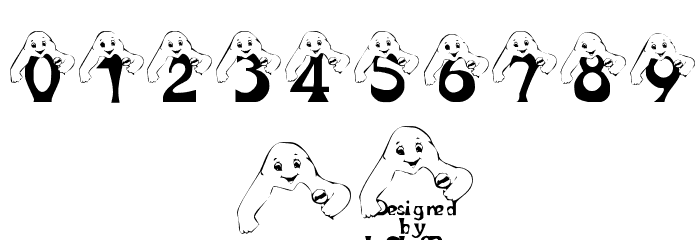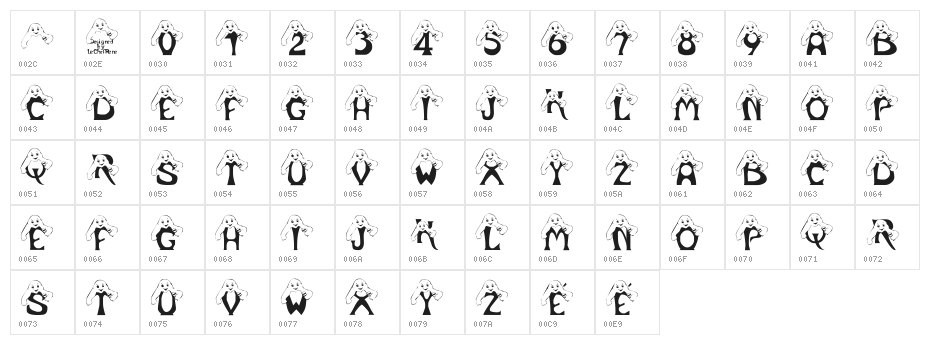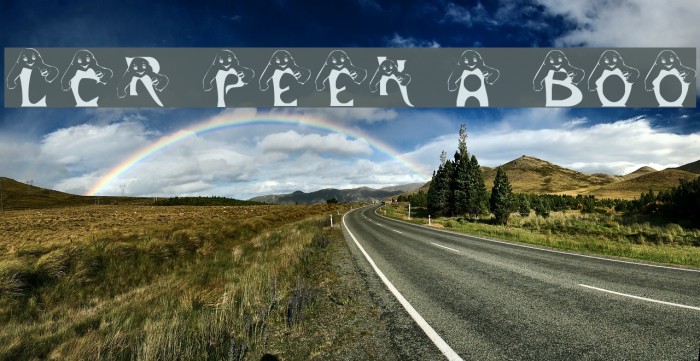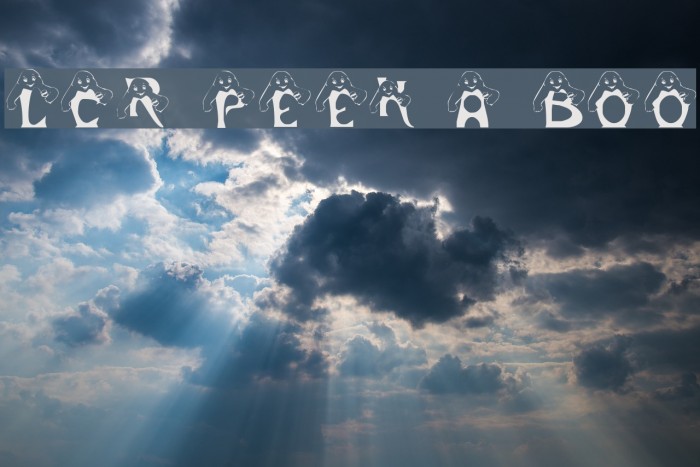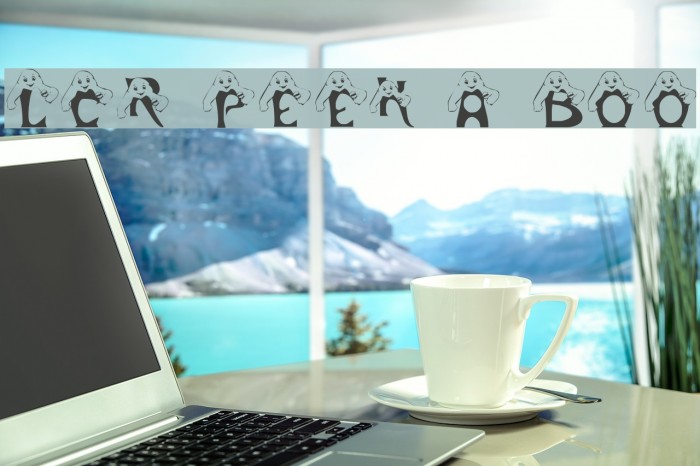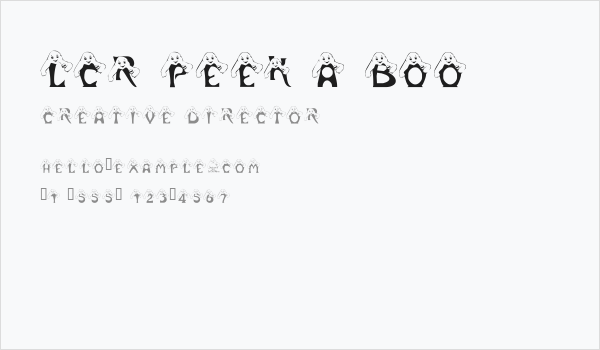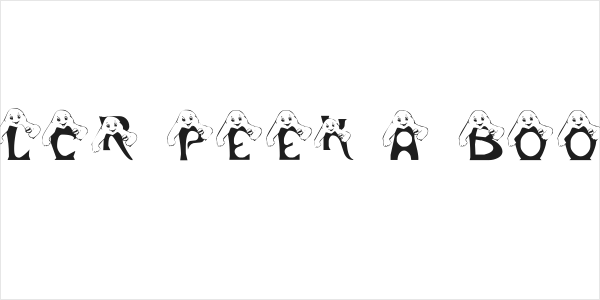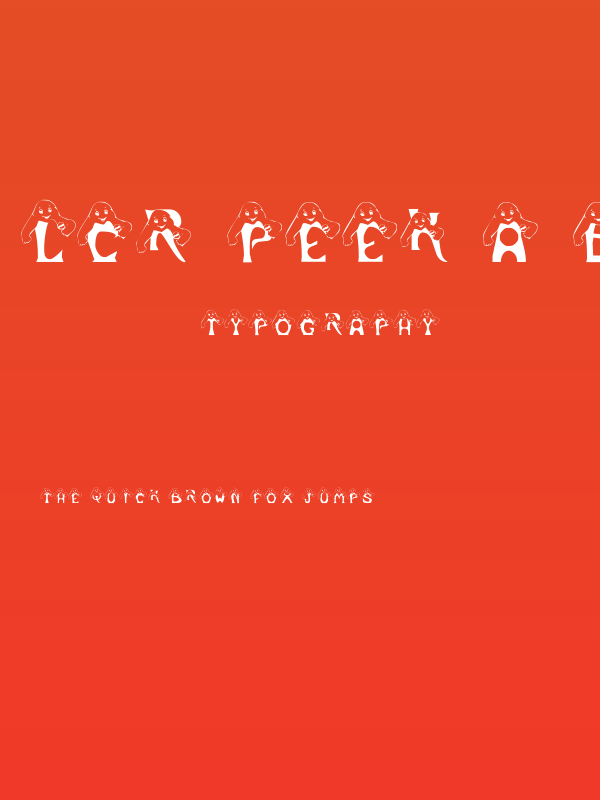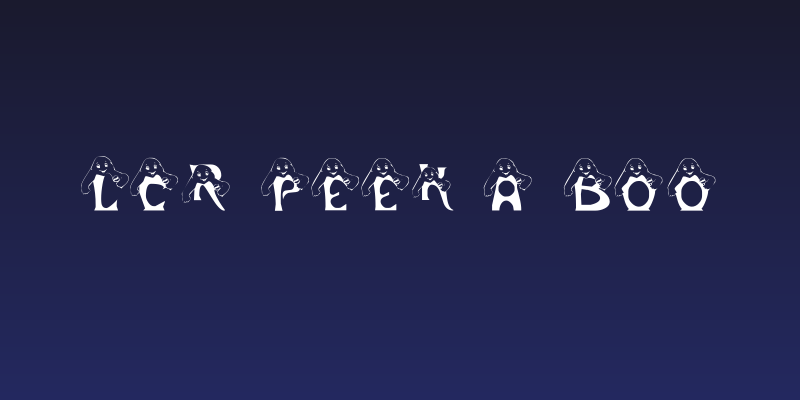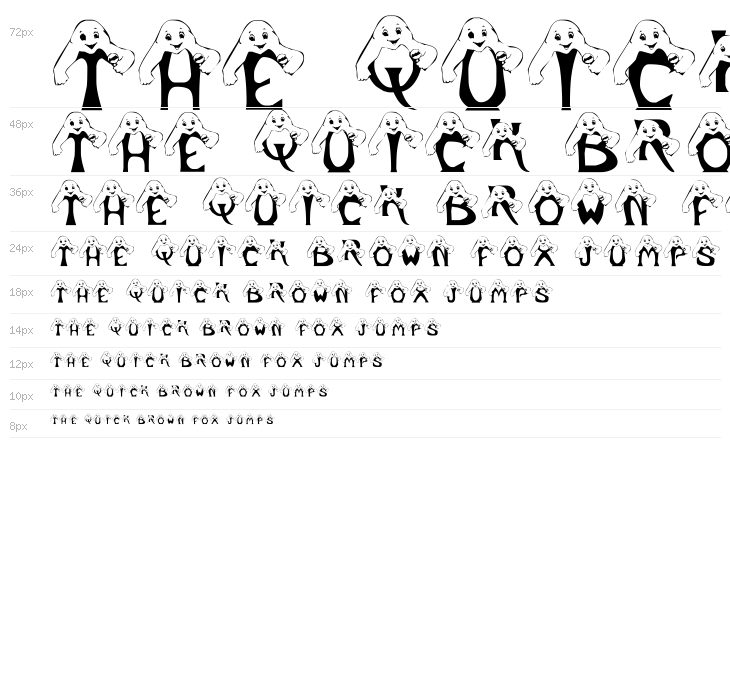
LCR Peek A Boo Font
LCR Peek A Boo Description
This playful and whimsical font features a unique design where each character is accompanied by a ghostly figure peeking over the top. The letters are bold and have a slightly irregular shape, adding to the quirky and fun aesthetic. The ghost figures are cartoonish, with friendly expressions, making the font ideal for lighthearted and festive themes. The numbers and special characters follow the same design, ensuring consistency throughout. This font is perfect for Halloween-themed projects, children's parties, or any event that requires a touch of humor and creativity.
| Proposed Projects | Ideal for Halloween invitations, children's party decorations, playful posters, and themed event signage. |